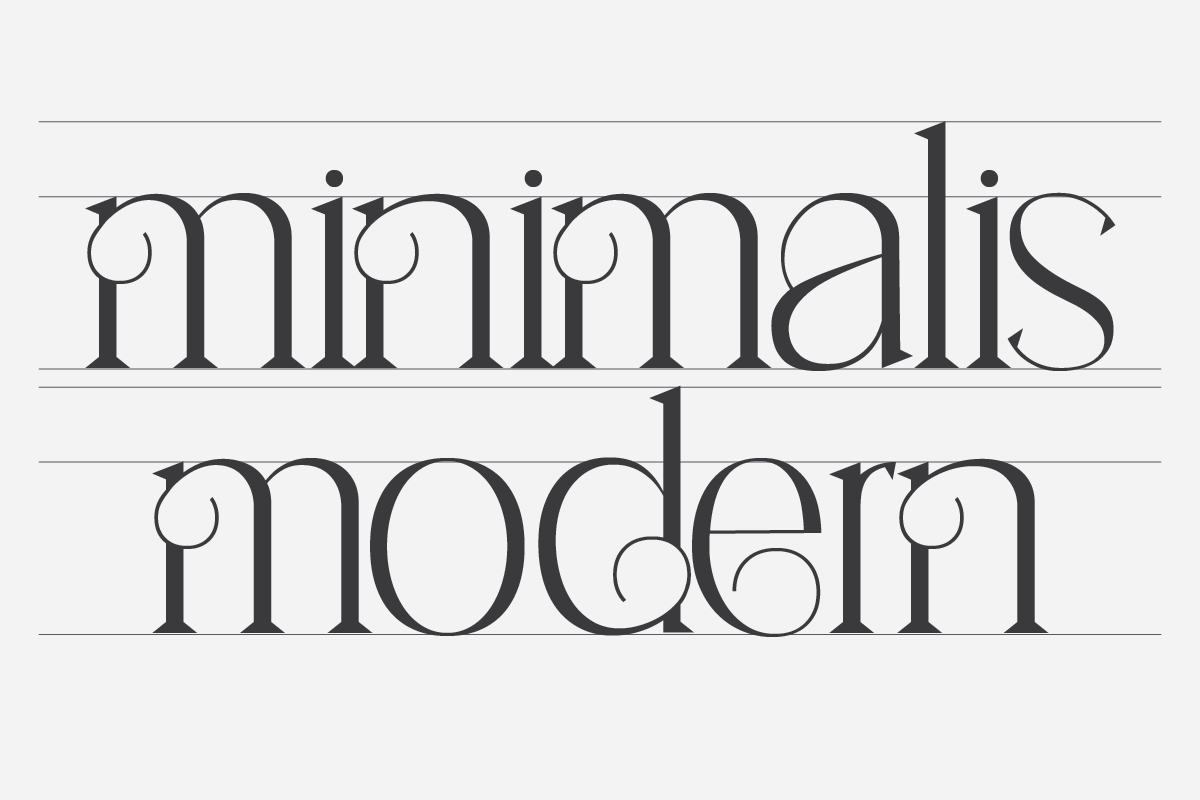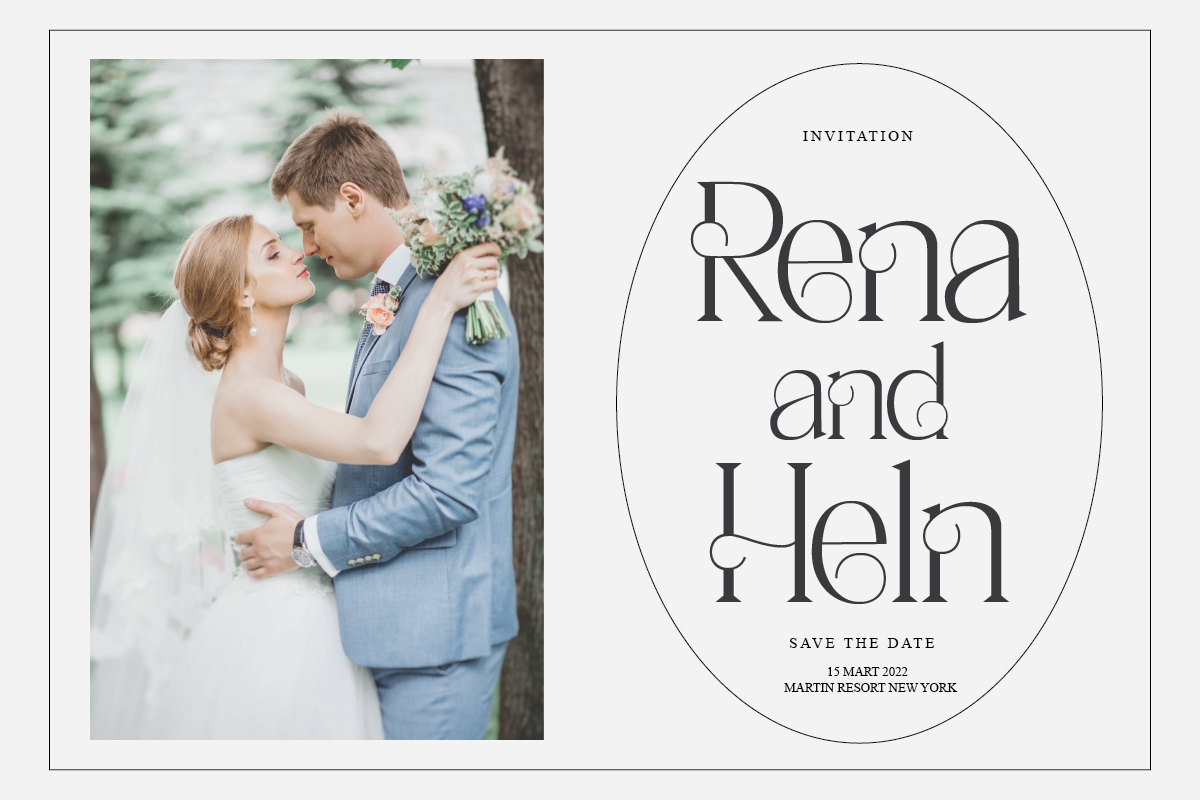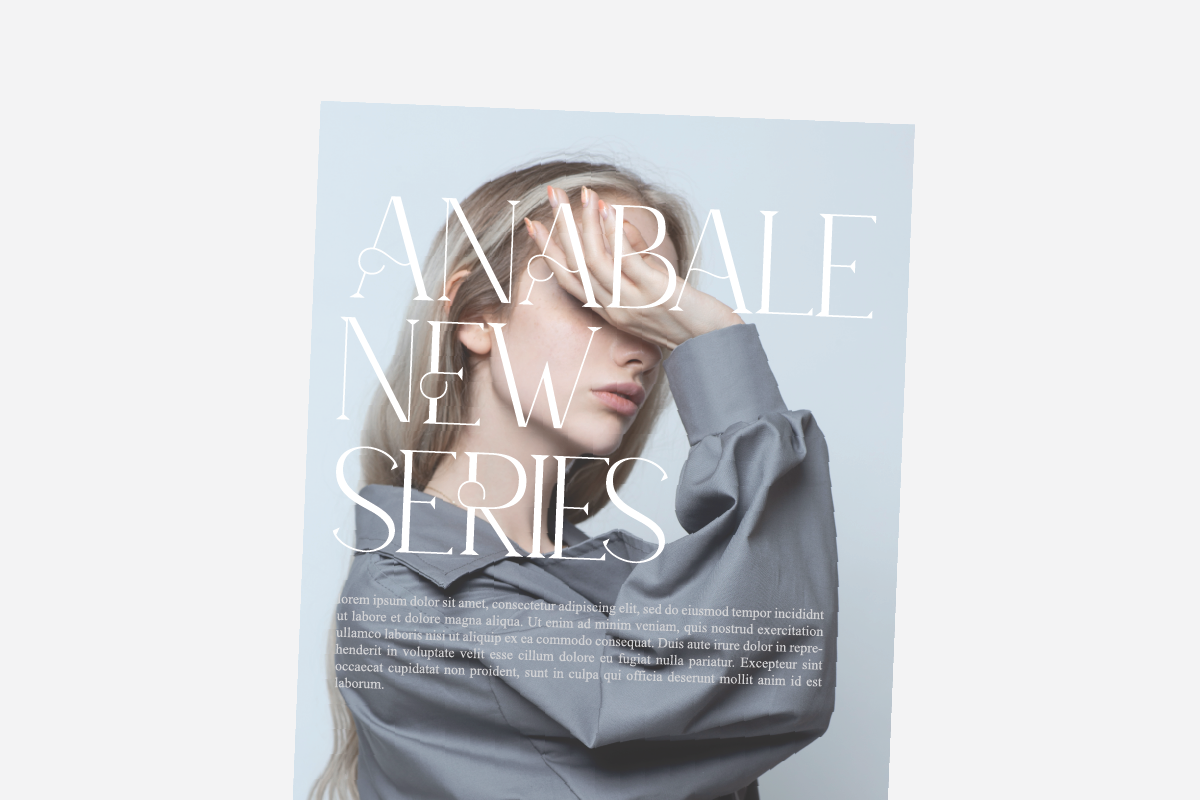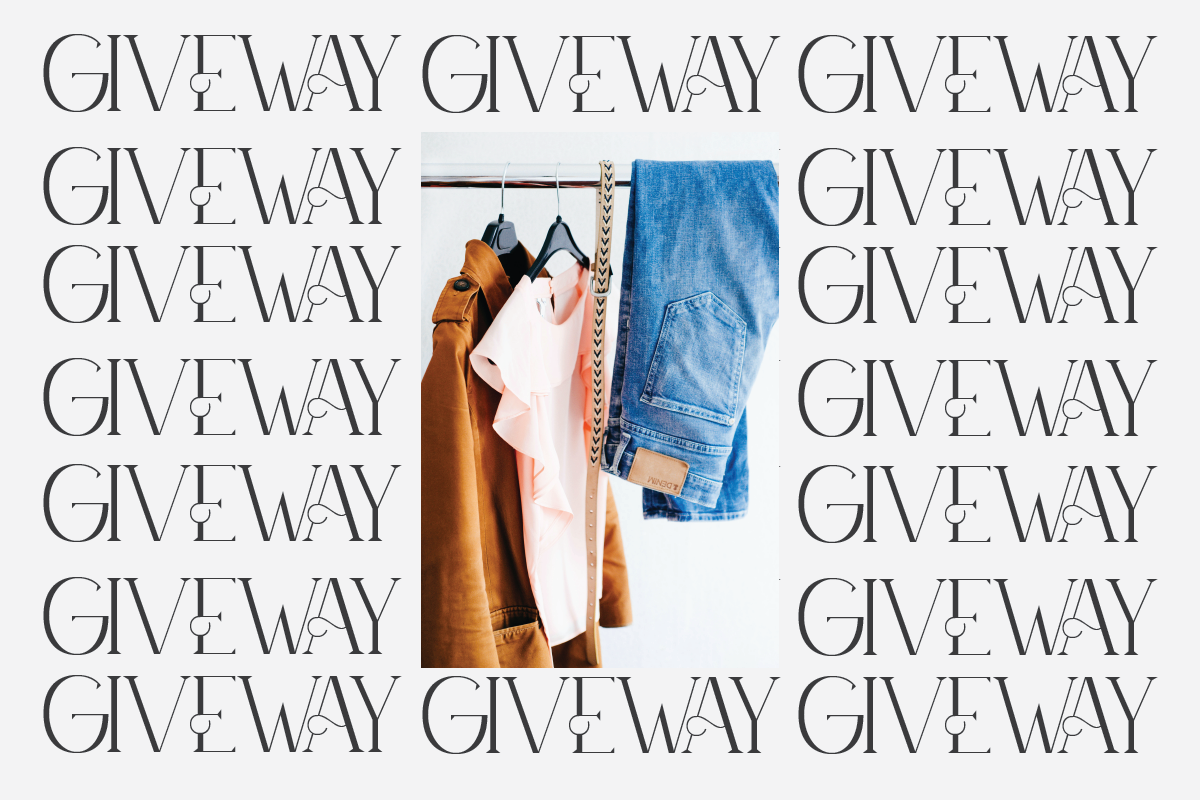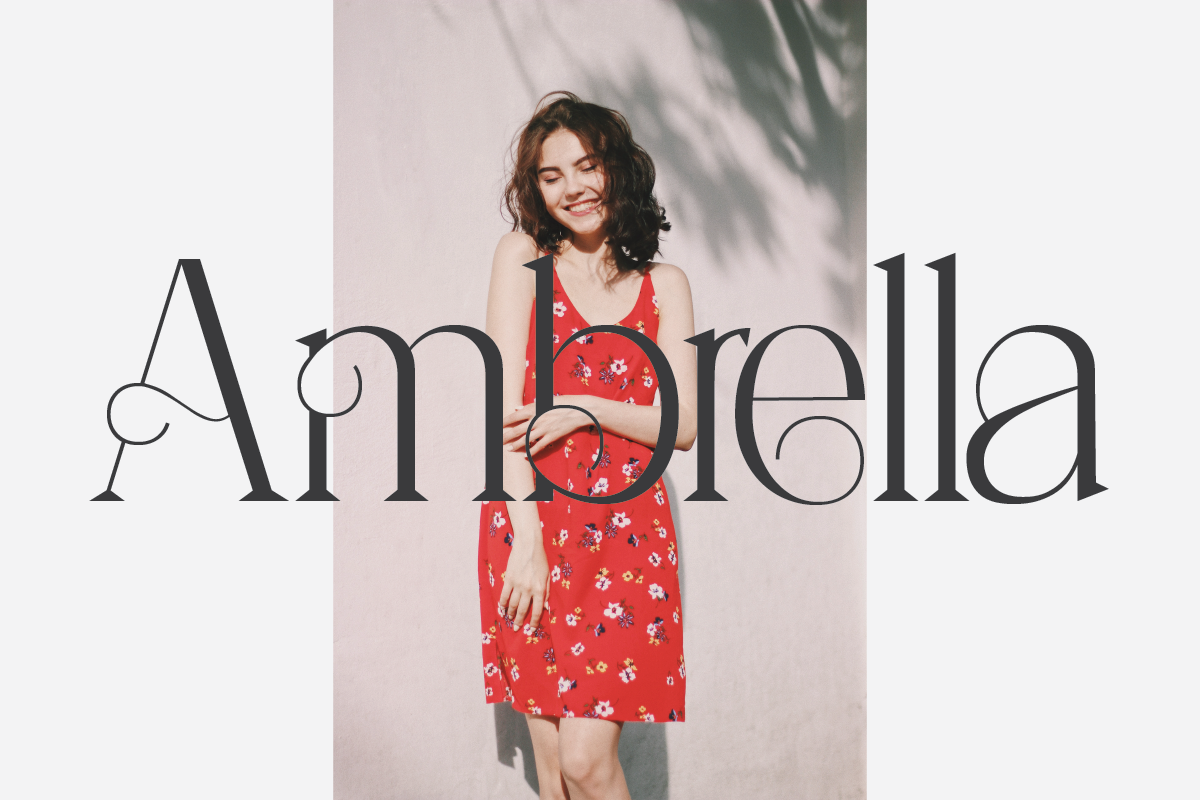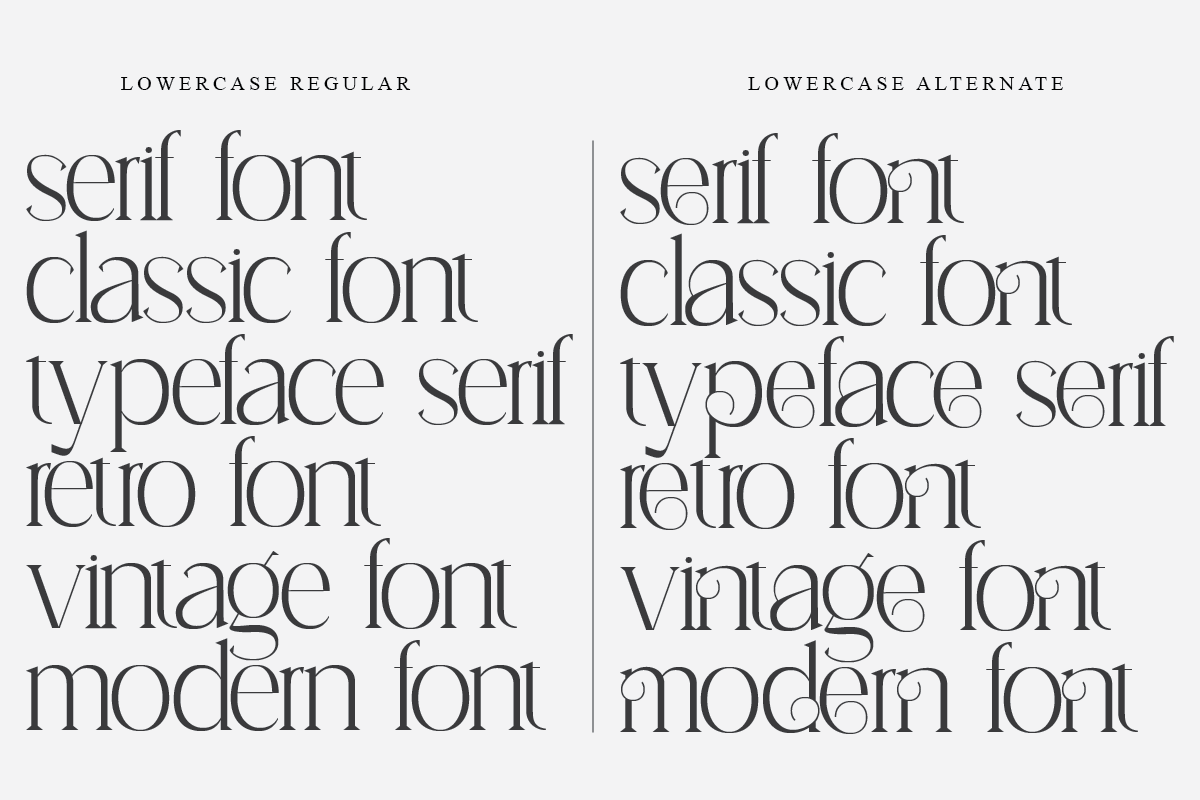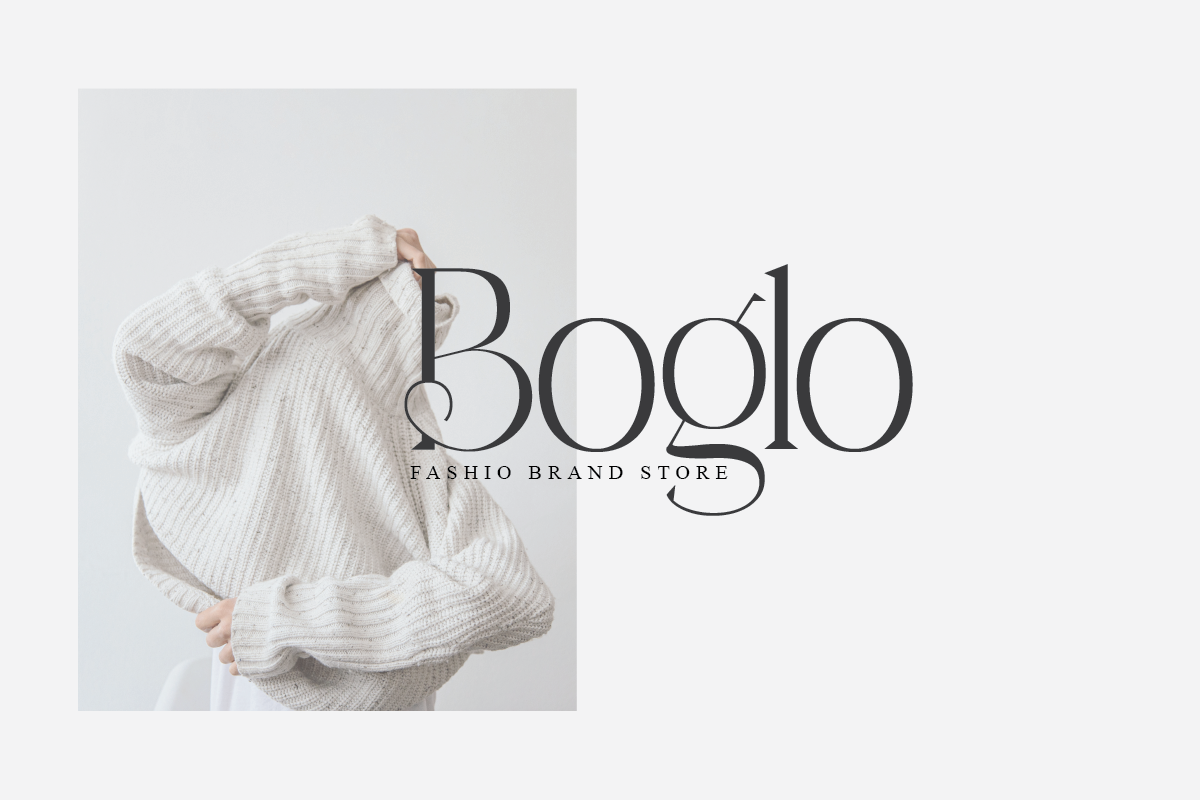
Aikenap
Aikenap Modern serif typeface with beautiful alternete, special glyphs, ornament and multilingual support. It's a very versatile font that works great in large and small sizes. Perfect for editorial projects, Logo design, Clothing Branding, product packaging, magazine headers, or simply as a stylish text overlay to any background image.